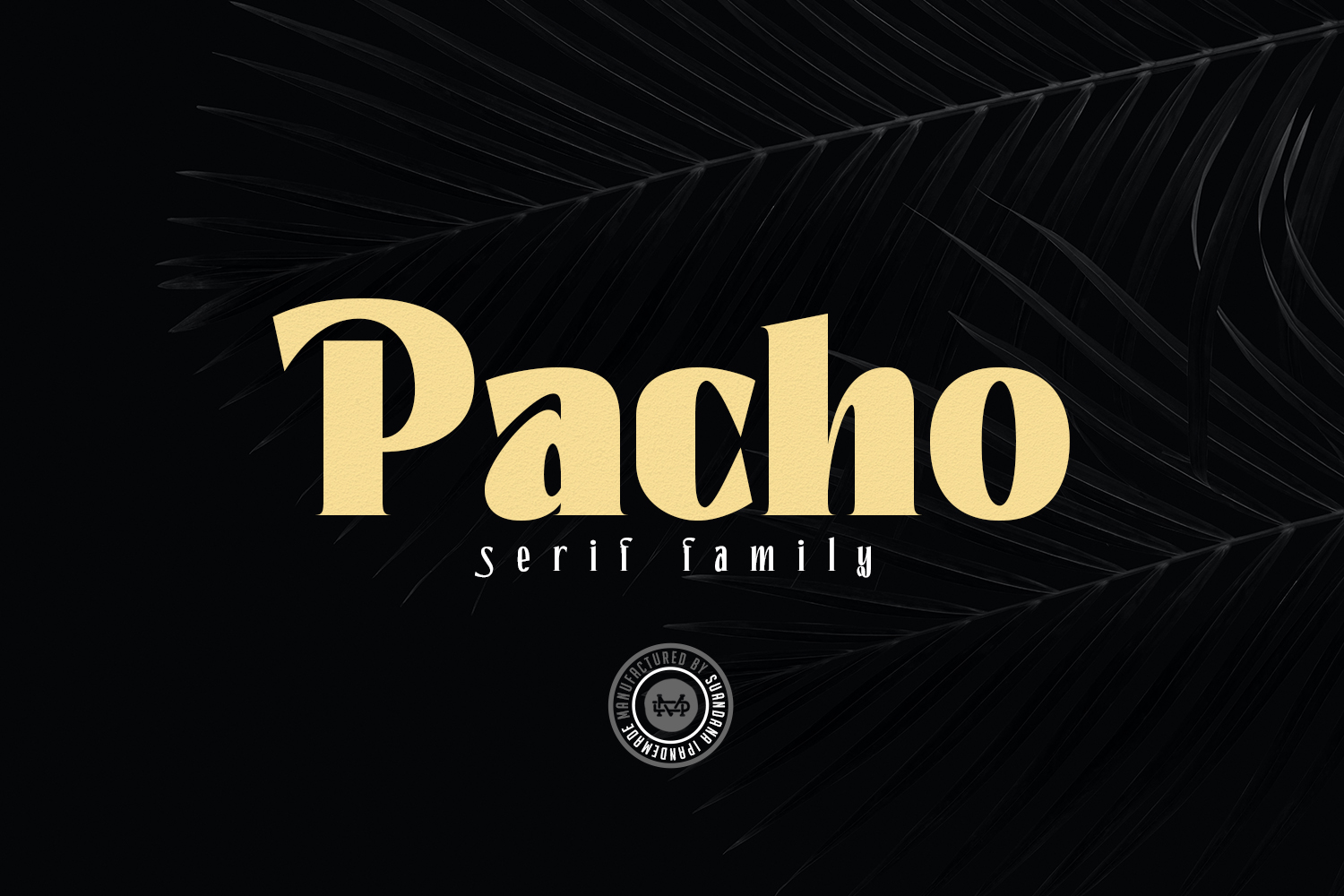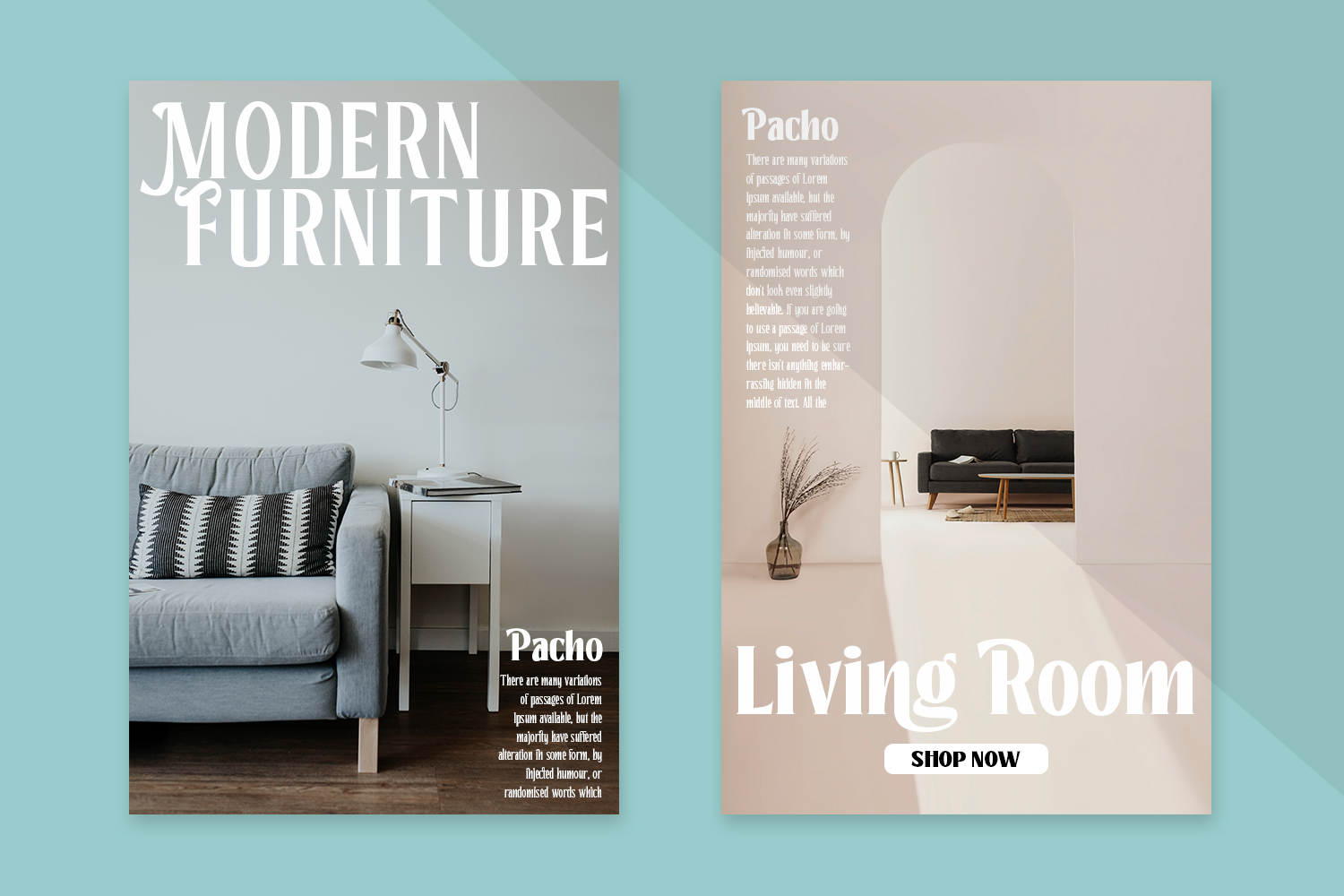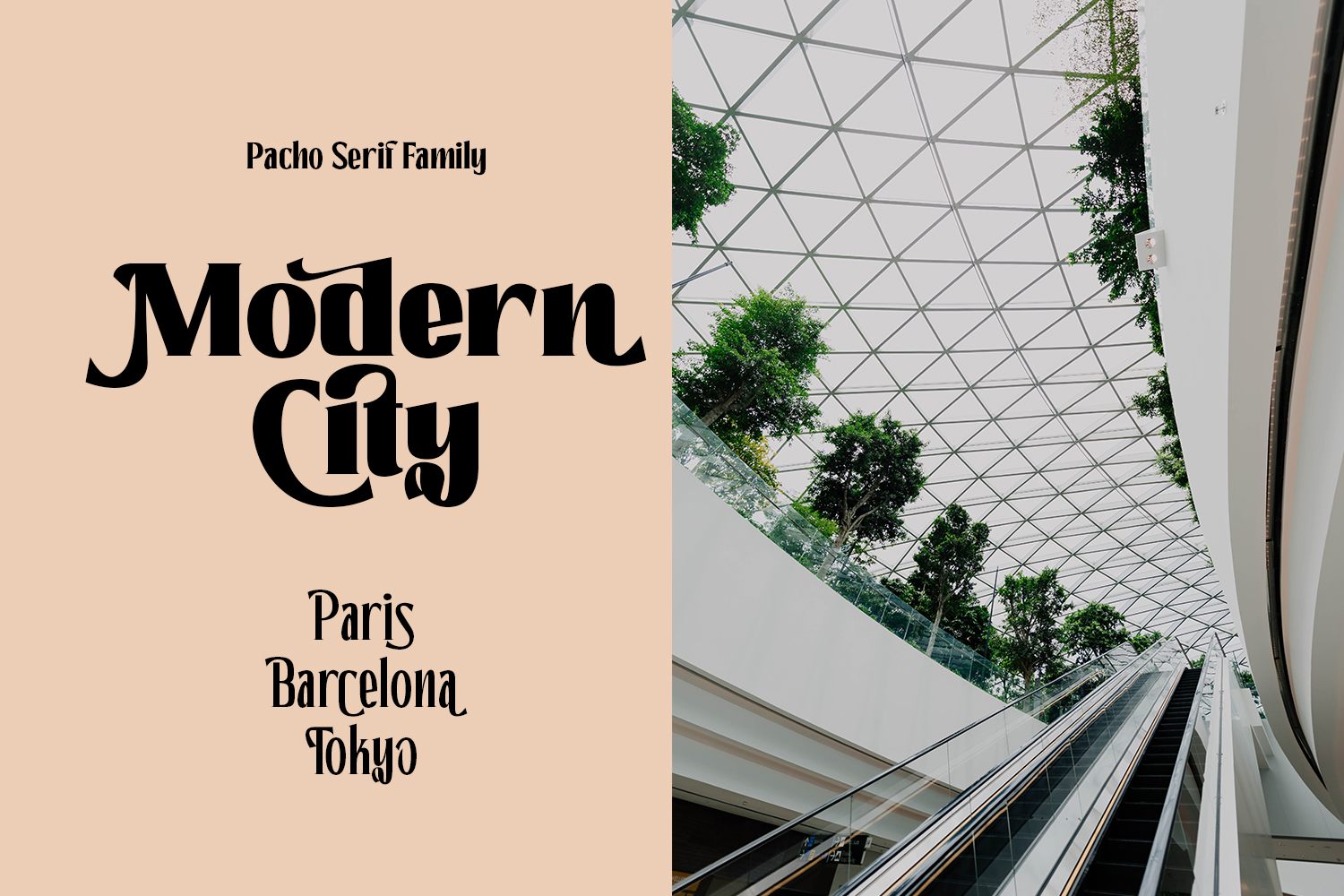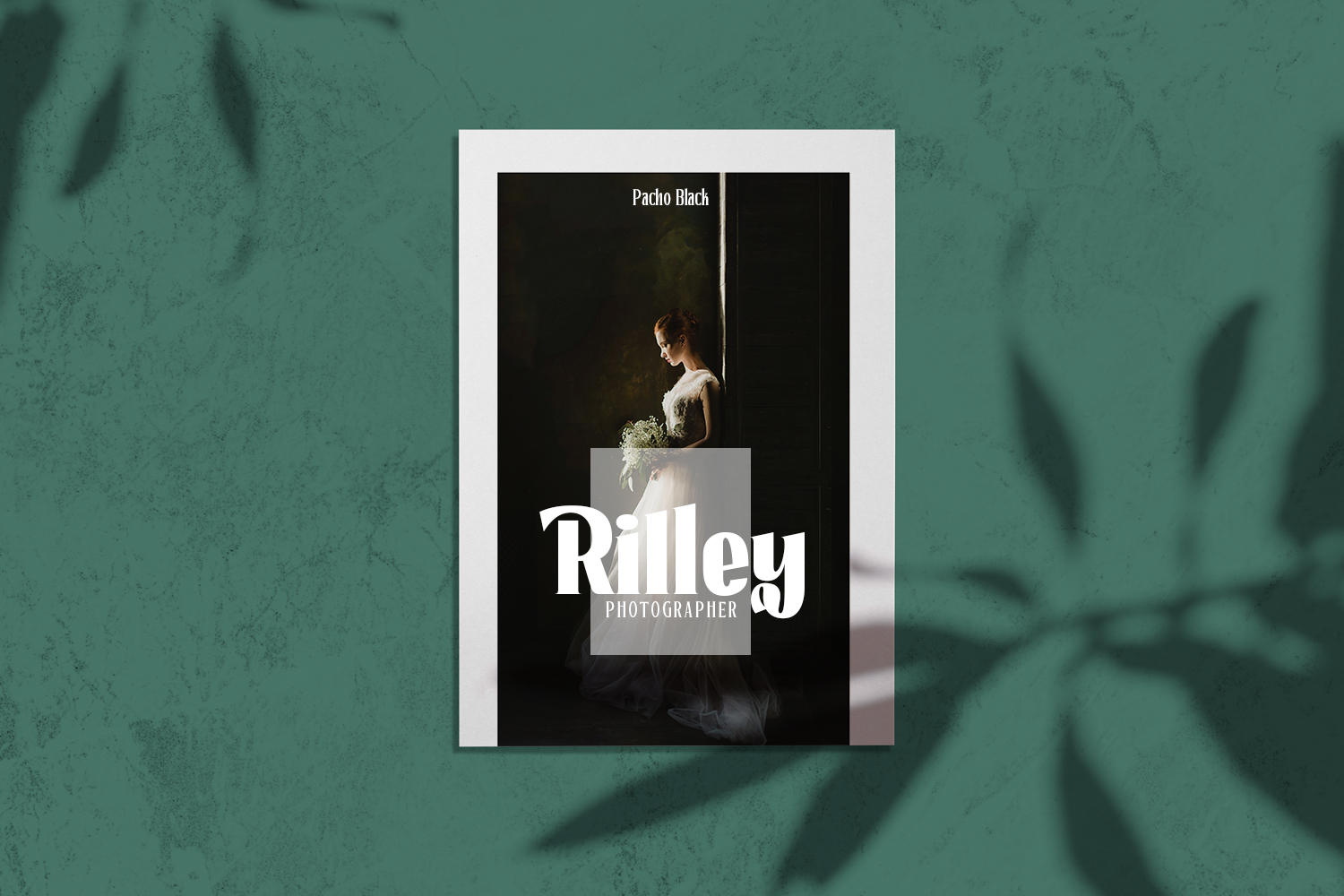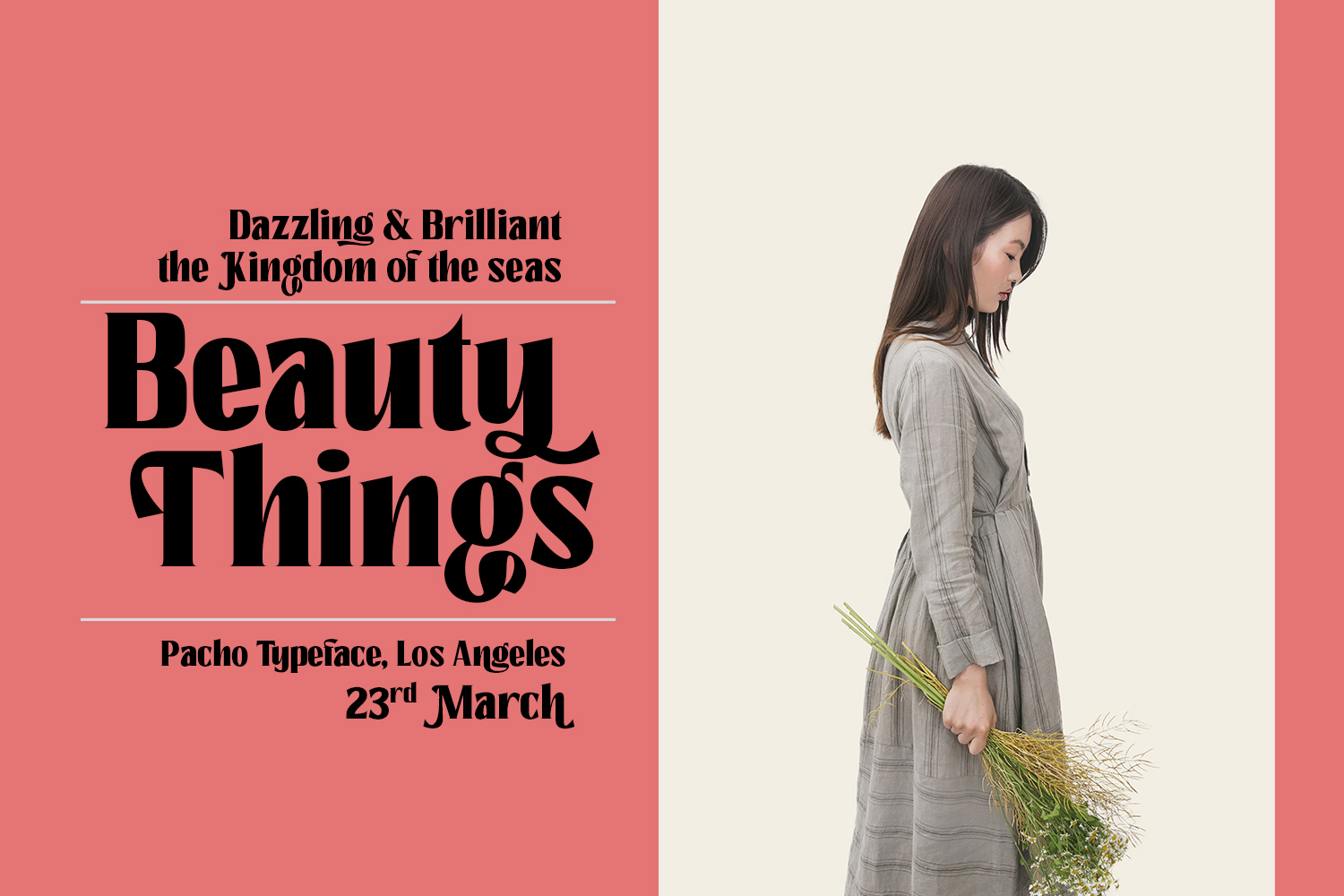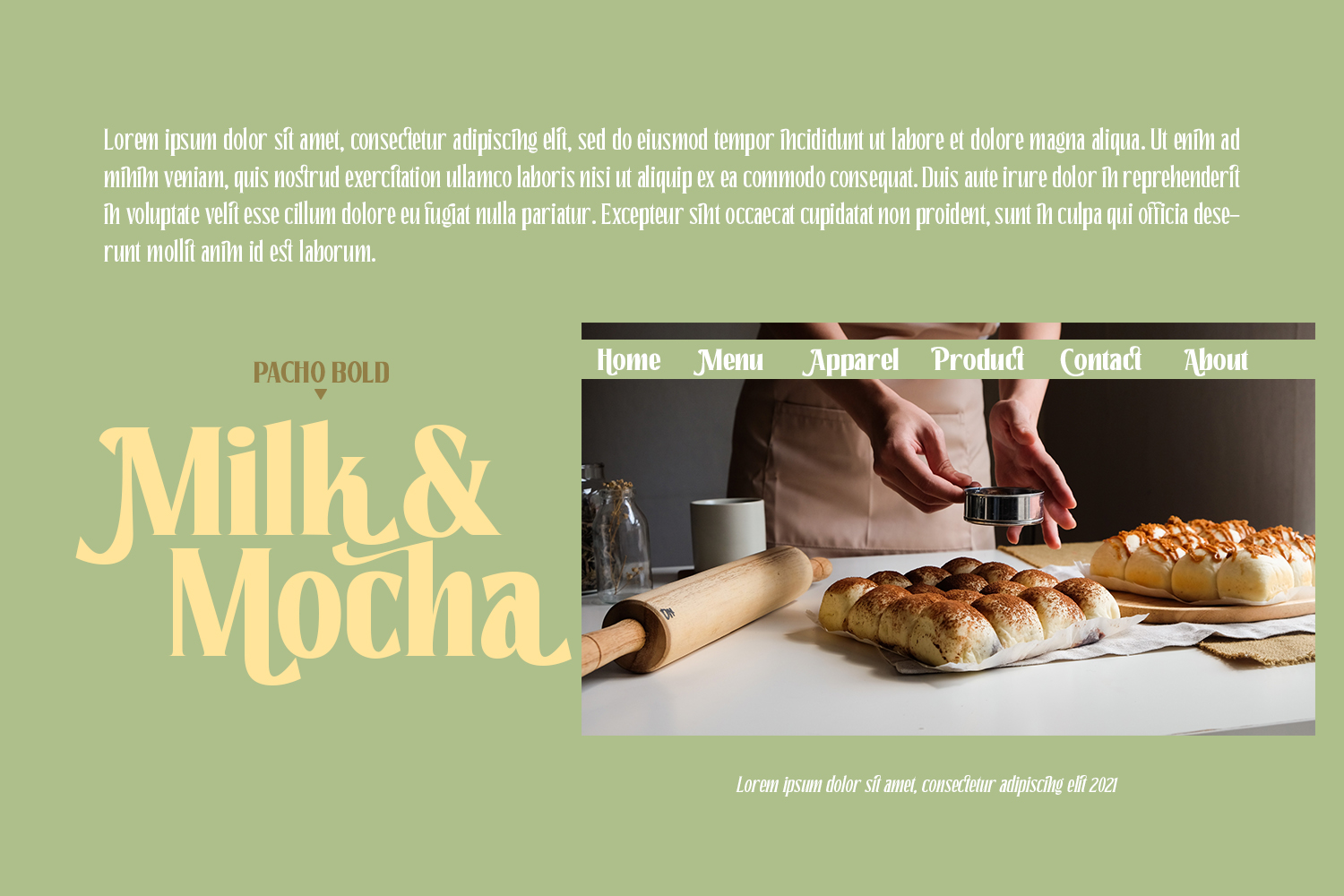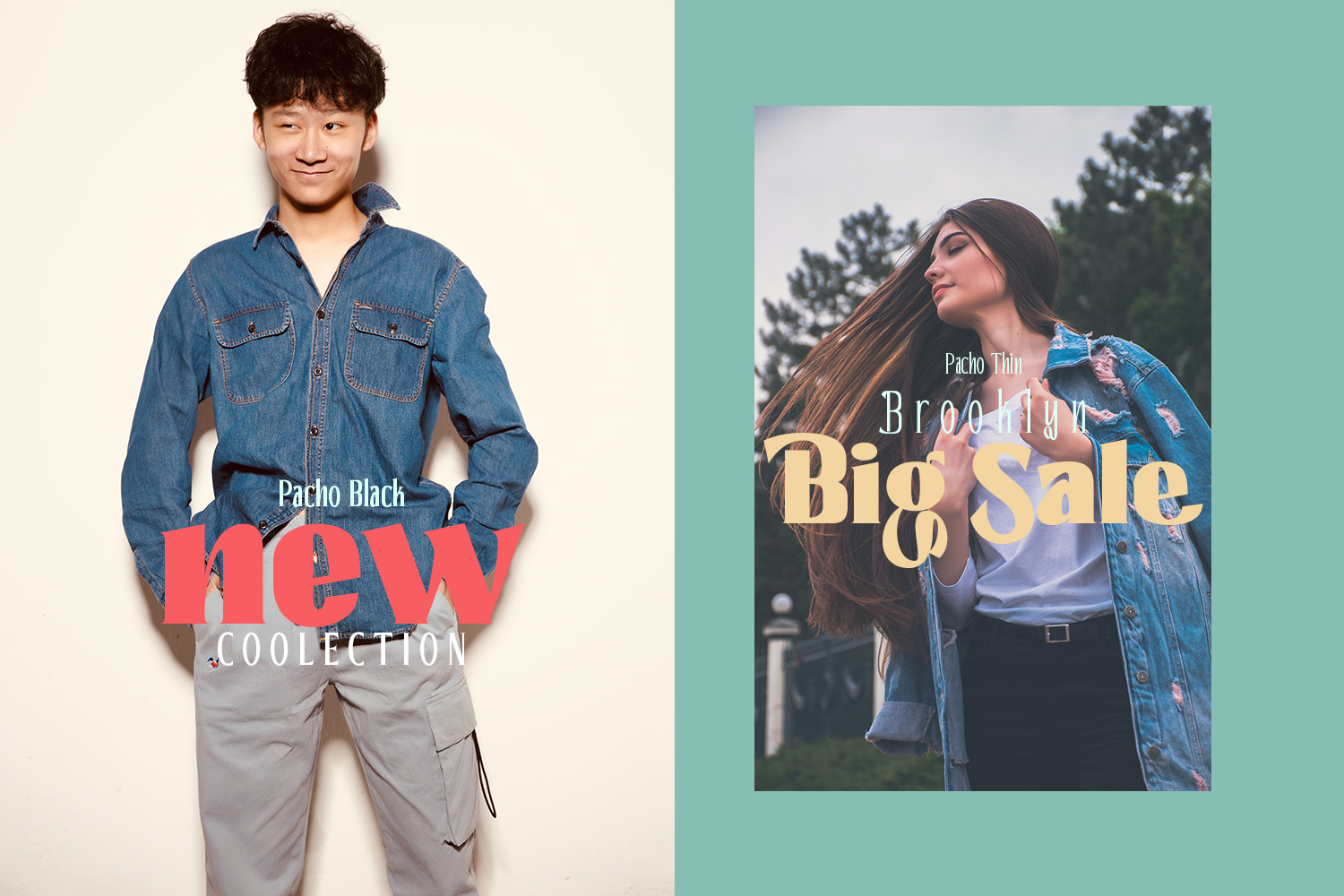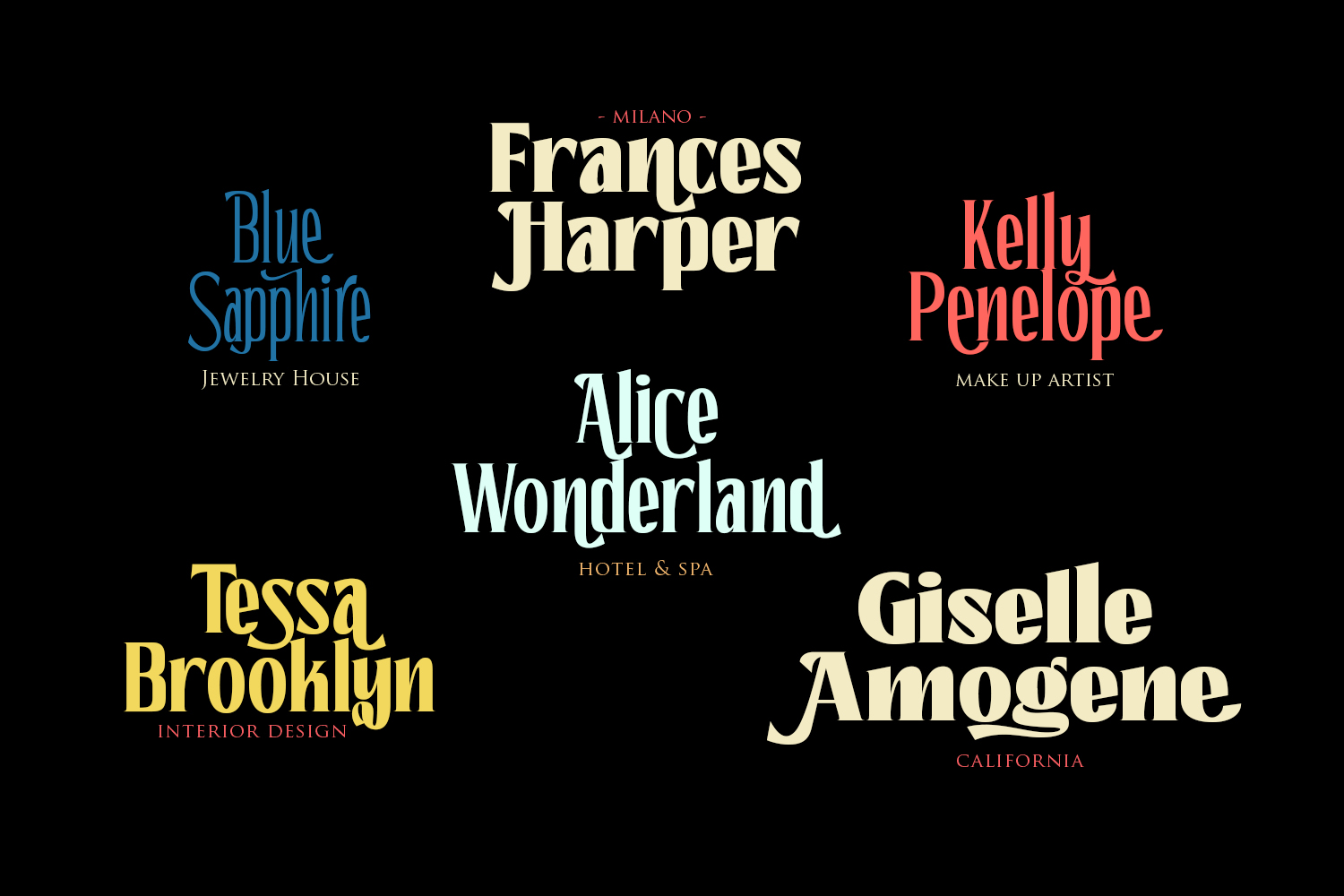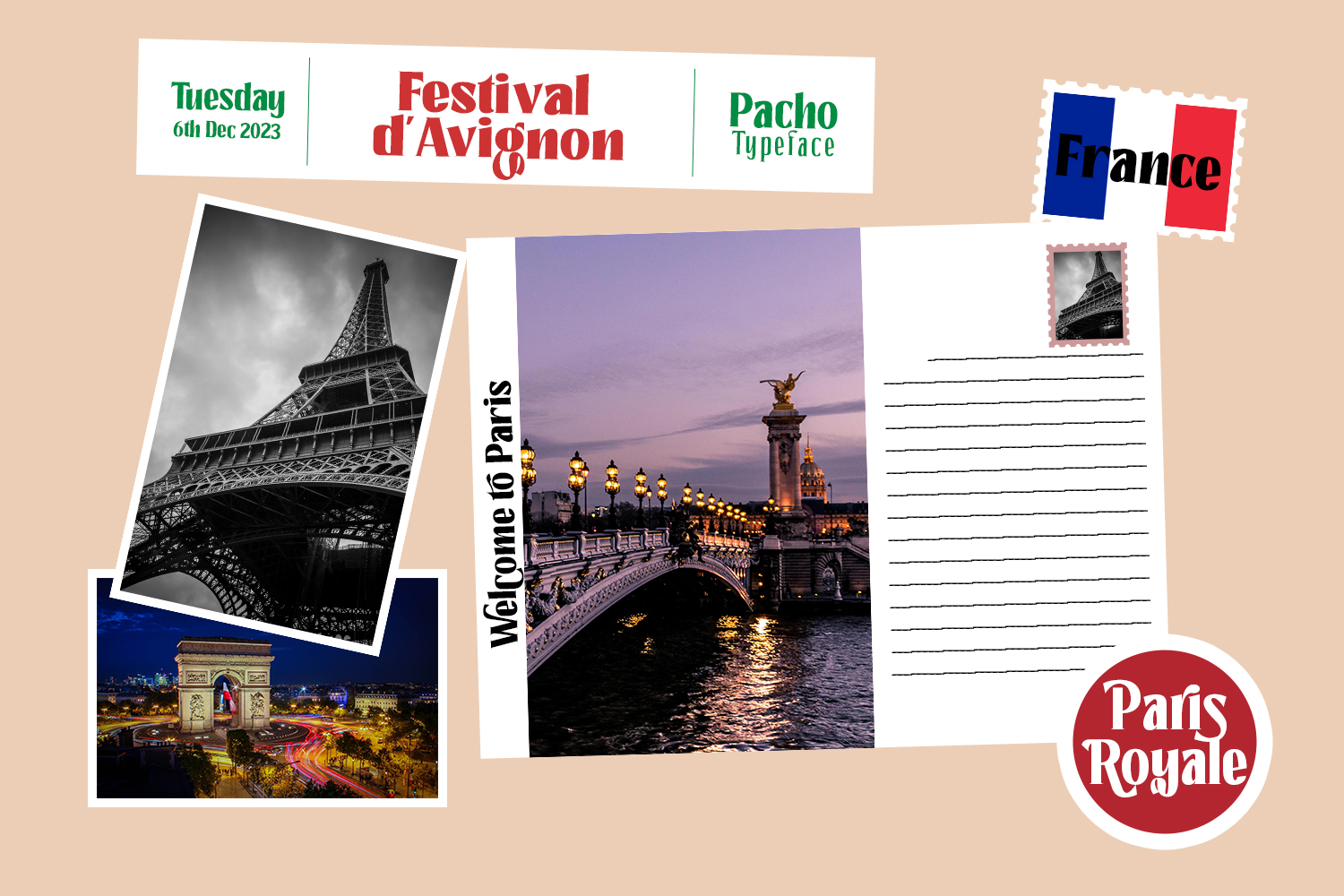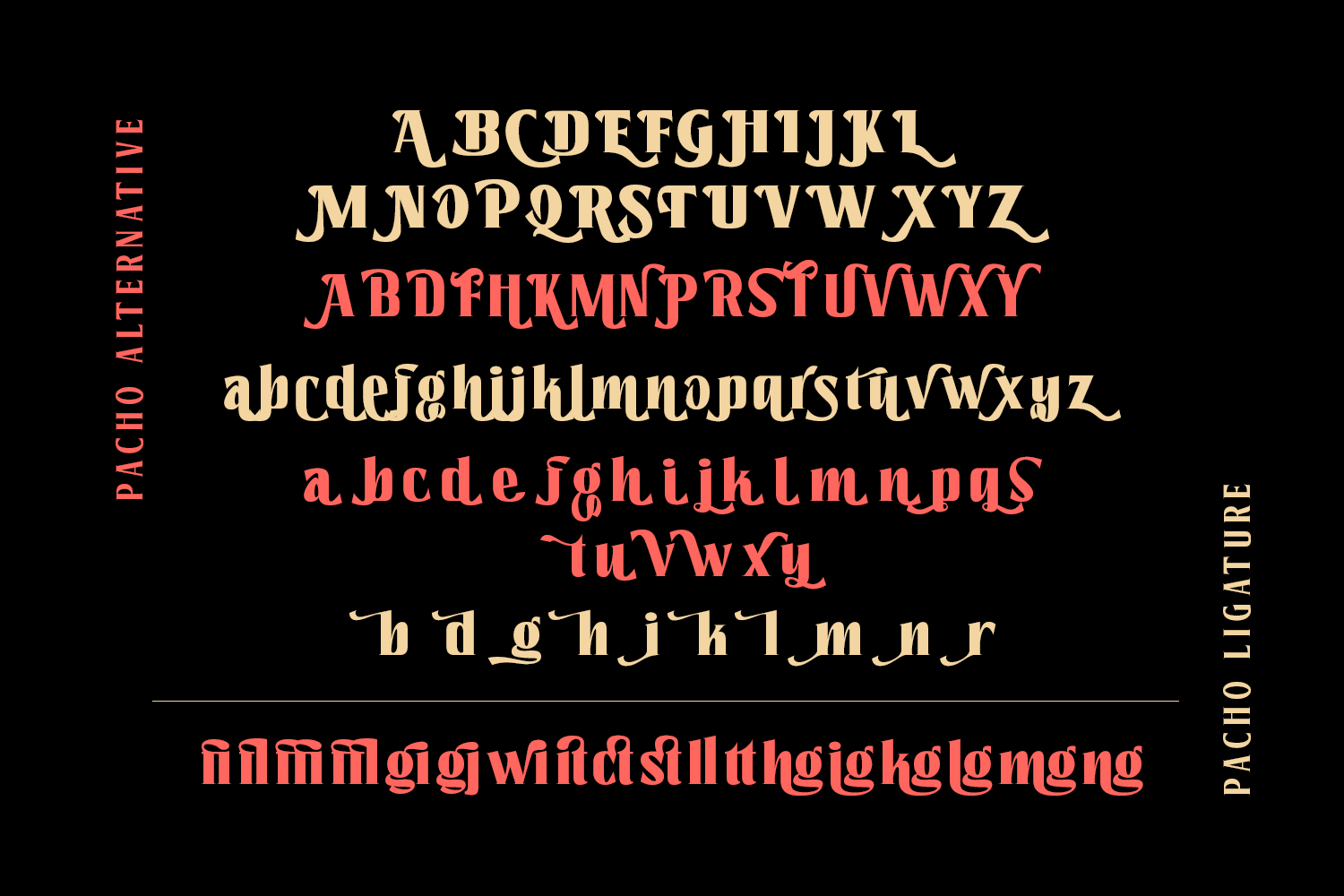
Pacho is a brand new serif family with much special alternative glyphs and ligatures comes with 9 variable weight to get more stunning.
Use this font family for any branding, product packaging, invitation, quotes, t-shirt, label, poster, logo etc.
– 9 Weight
– UPPERCASE & Lowercase
– Number & Symbol
– International Glyphs
– Alternative & Ligatures
– Multilingual support